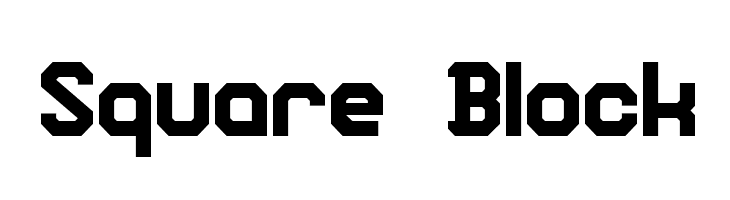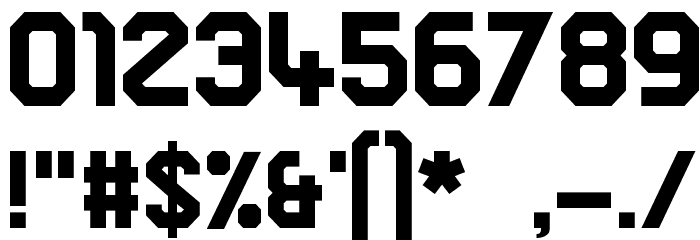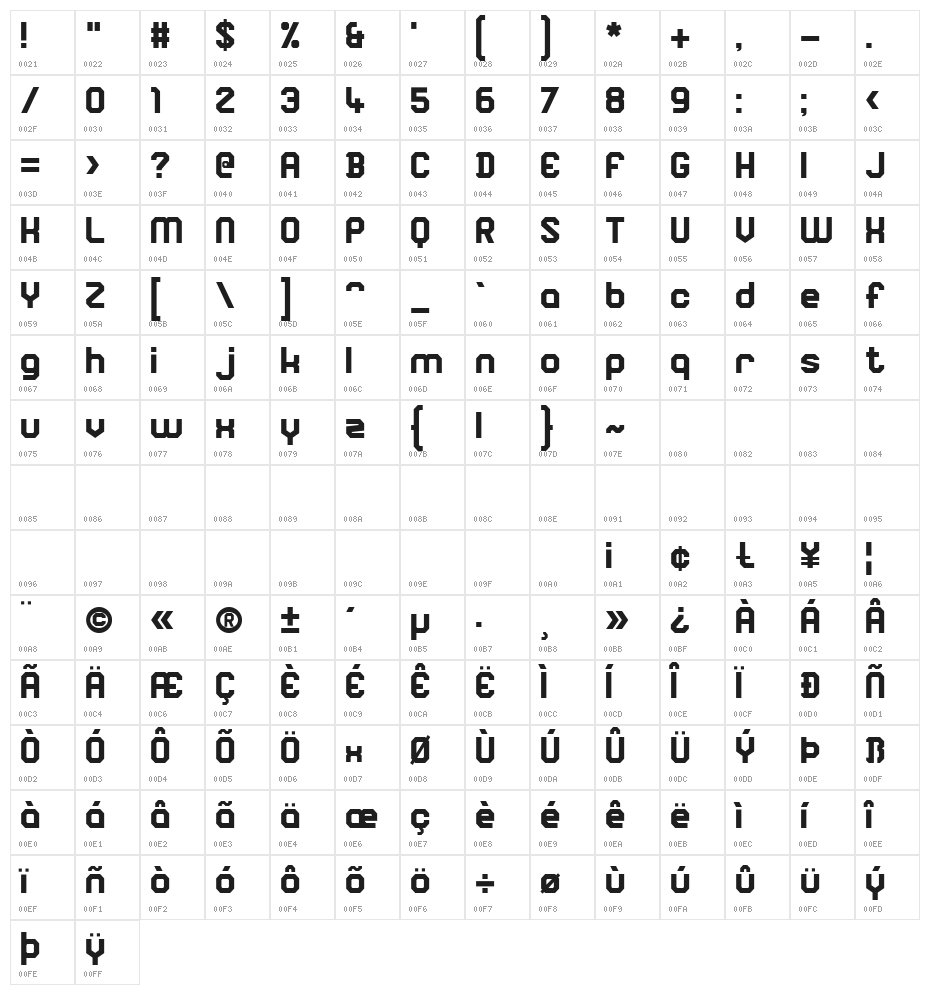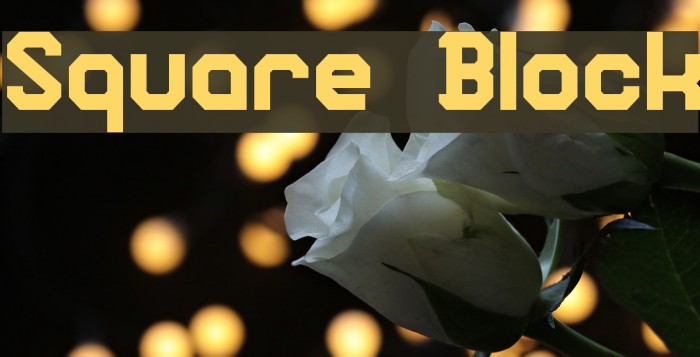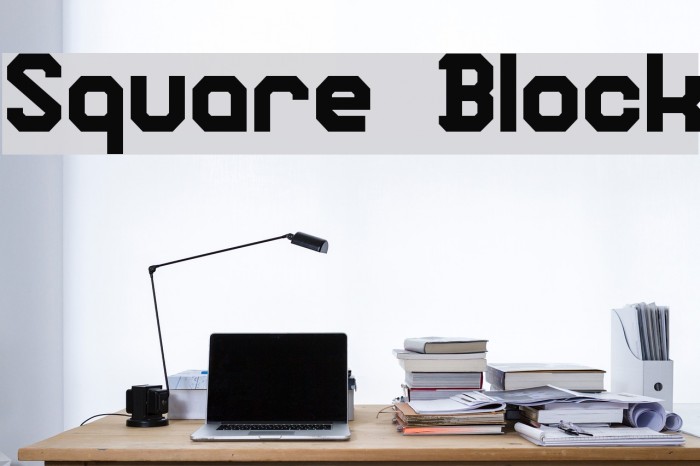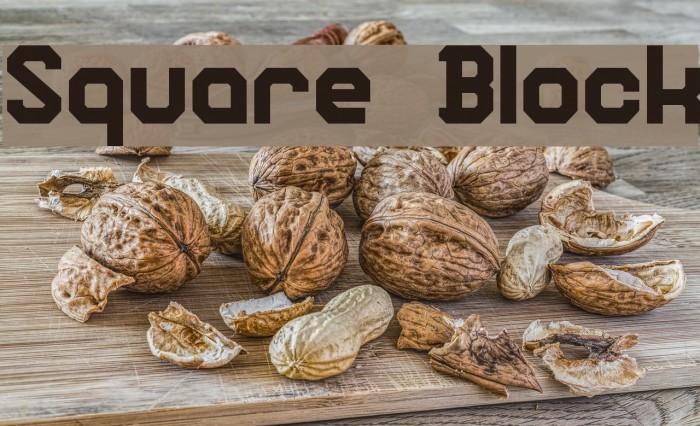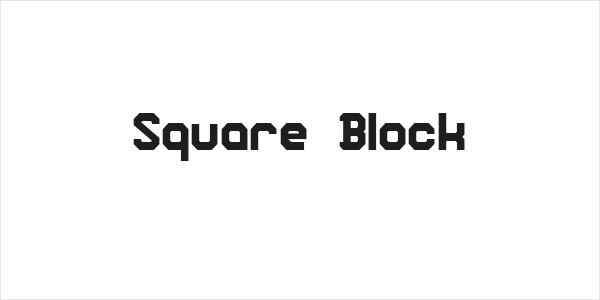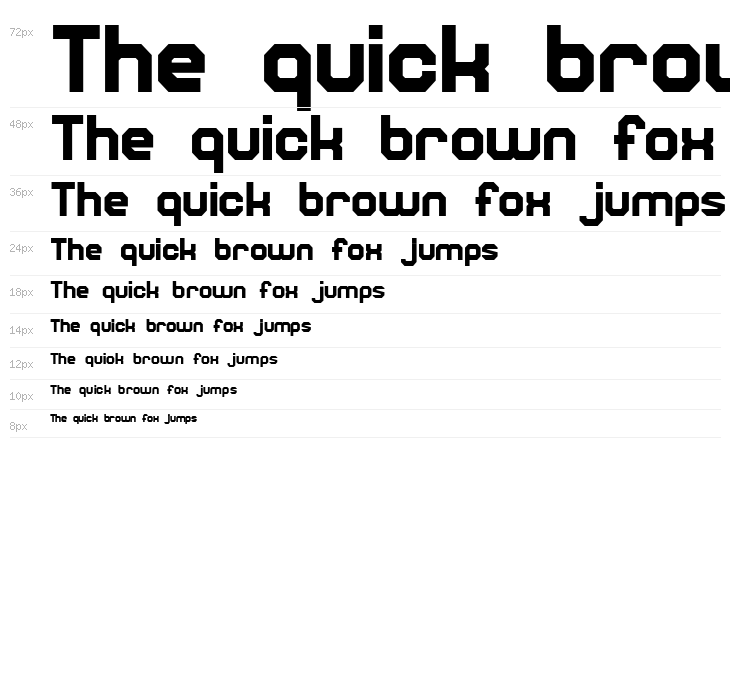
Square Block Font
Square Block Description
This font exhibits a bold, geometric style with a blocky, angular appearance. Each character is crafted with sharp edges and a consistent thickness, giving it a strong and impactful presence. The uppercase and lowercase letters maintain a uniform height, contributing to a cohesive look. The numerals and special characters follow the same design principles, ensuring a harmonious visual flow. This font's distinct style makes it suitable for attention-grabbing designs where a modern and assertive aesthetic is desired.